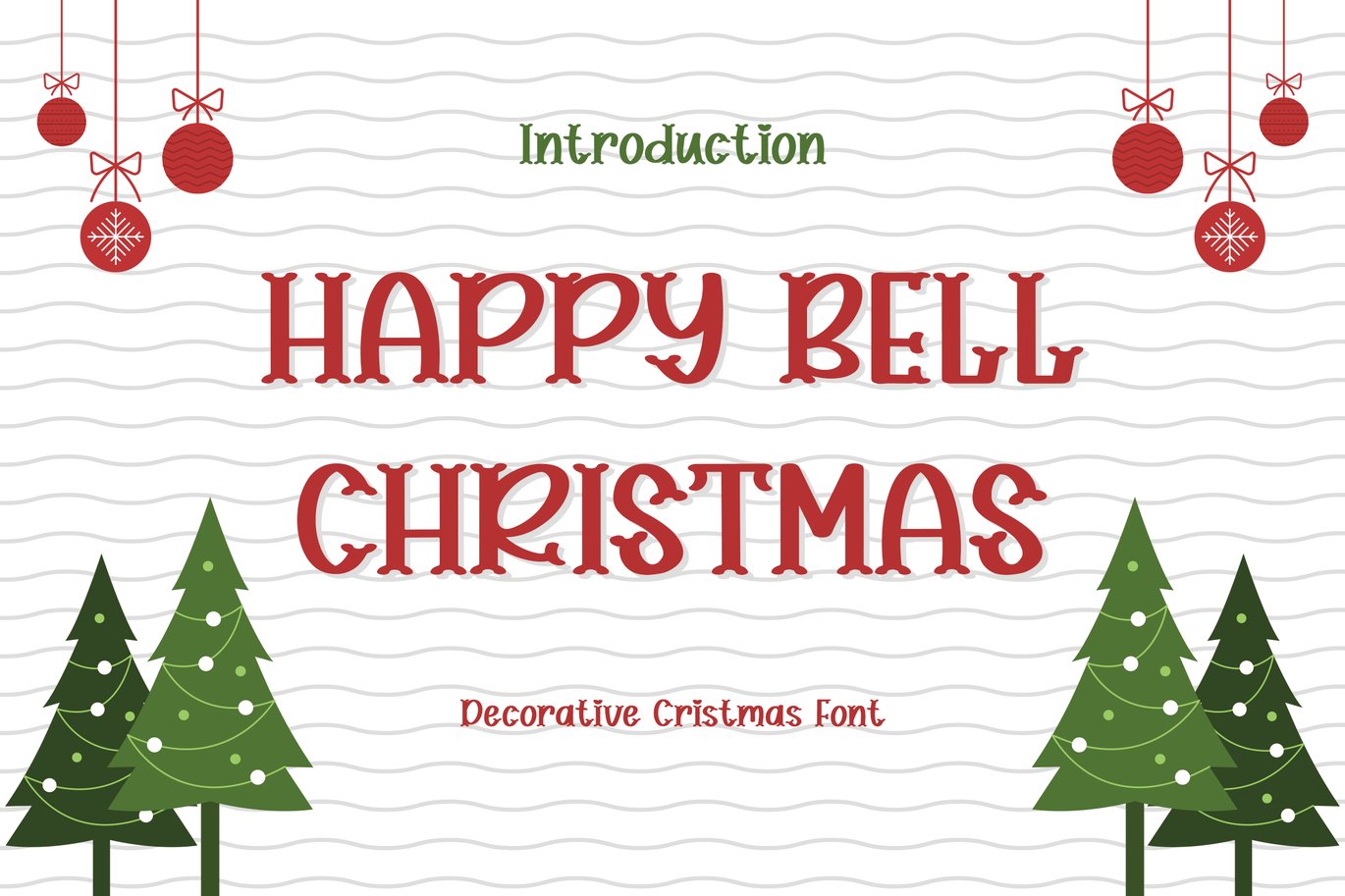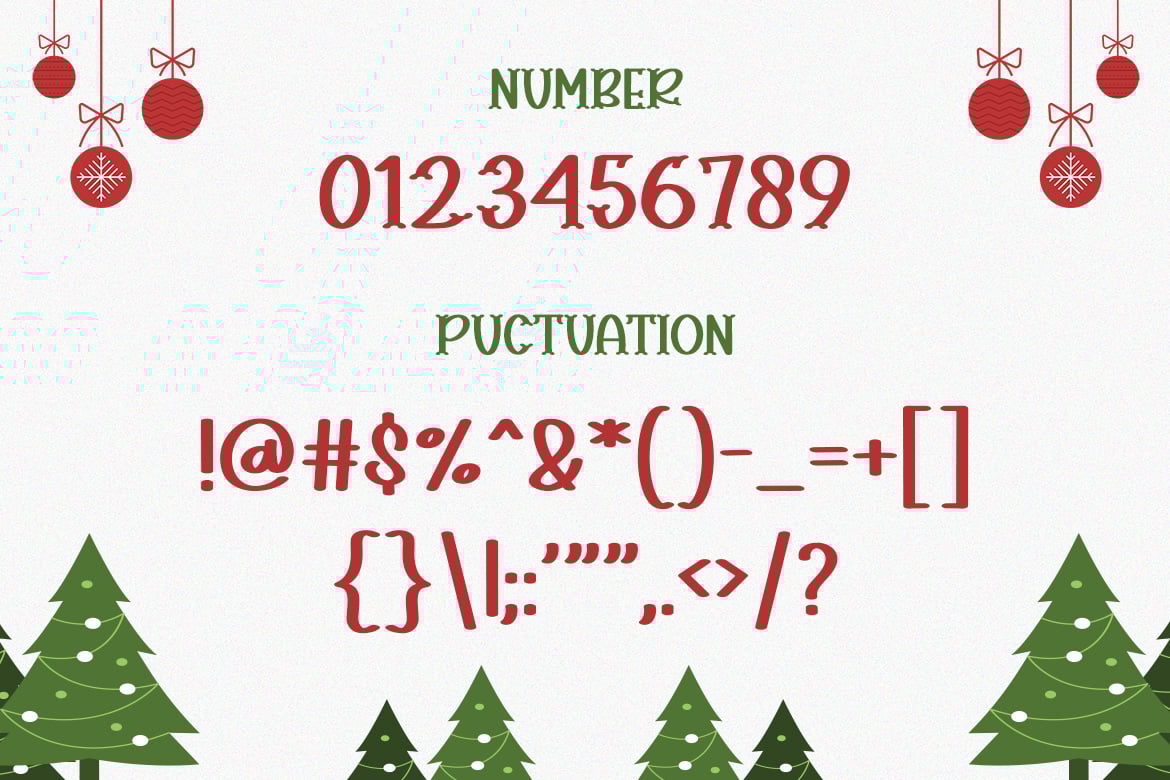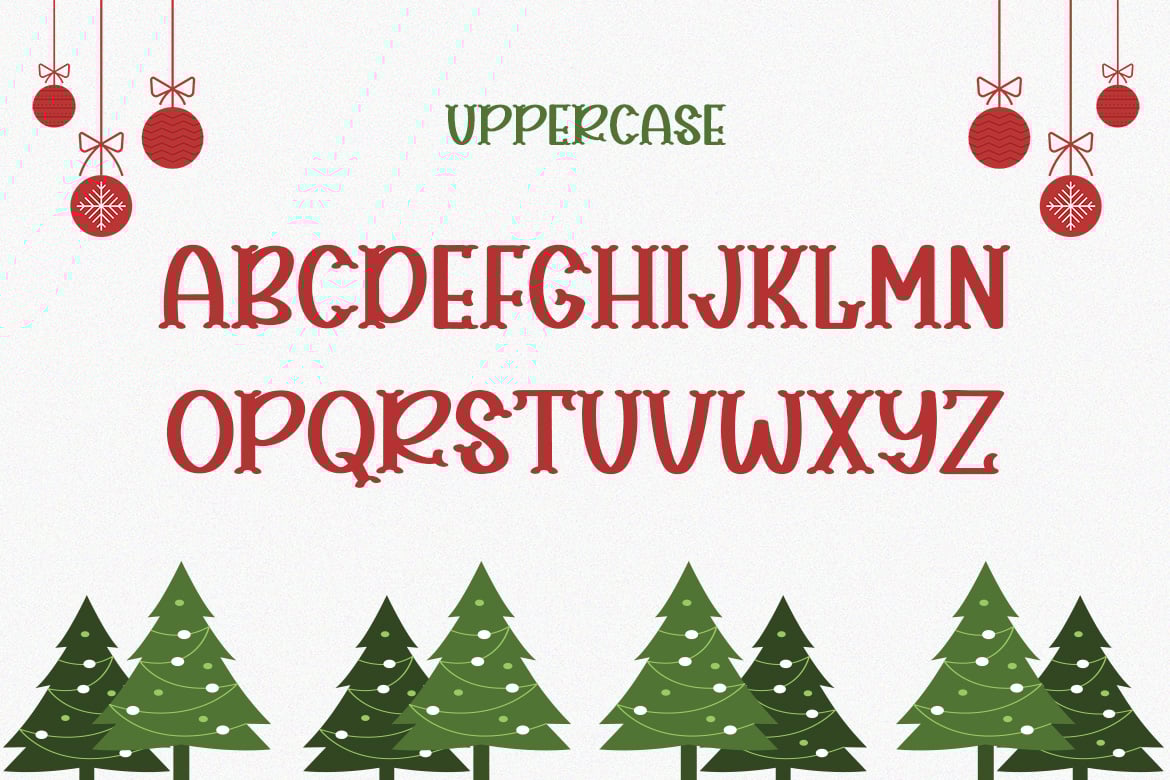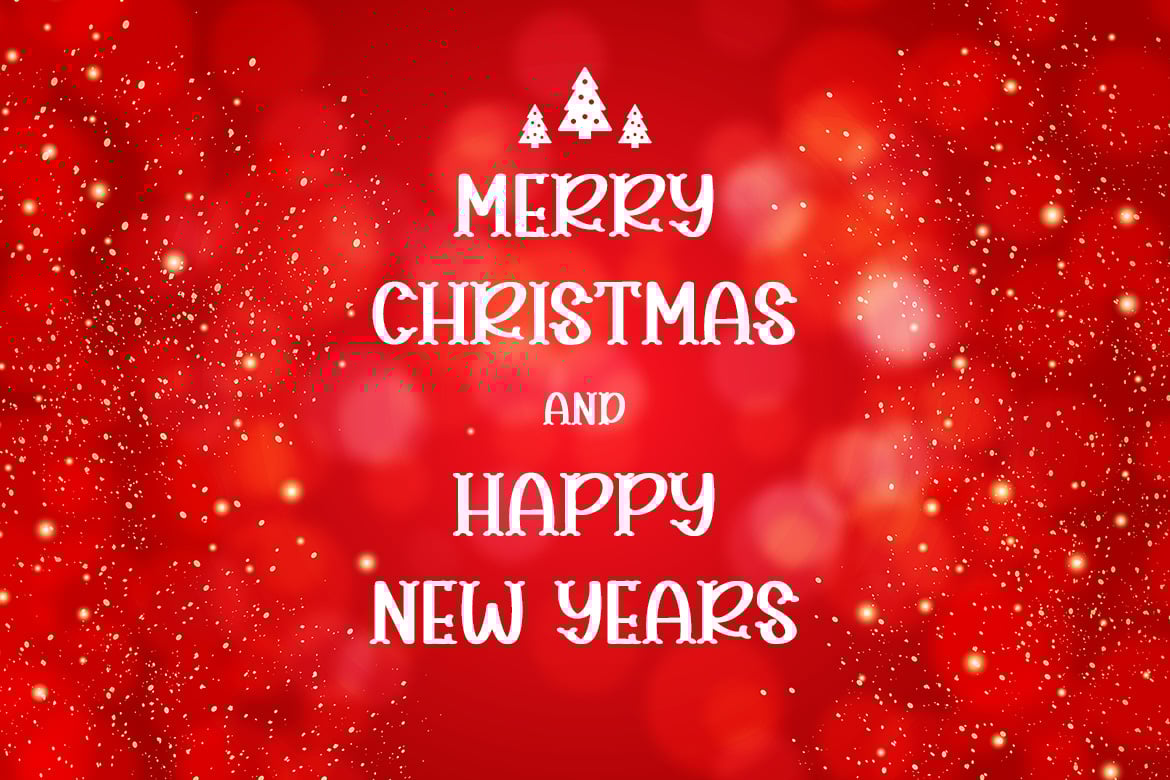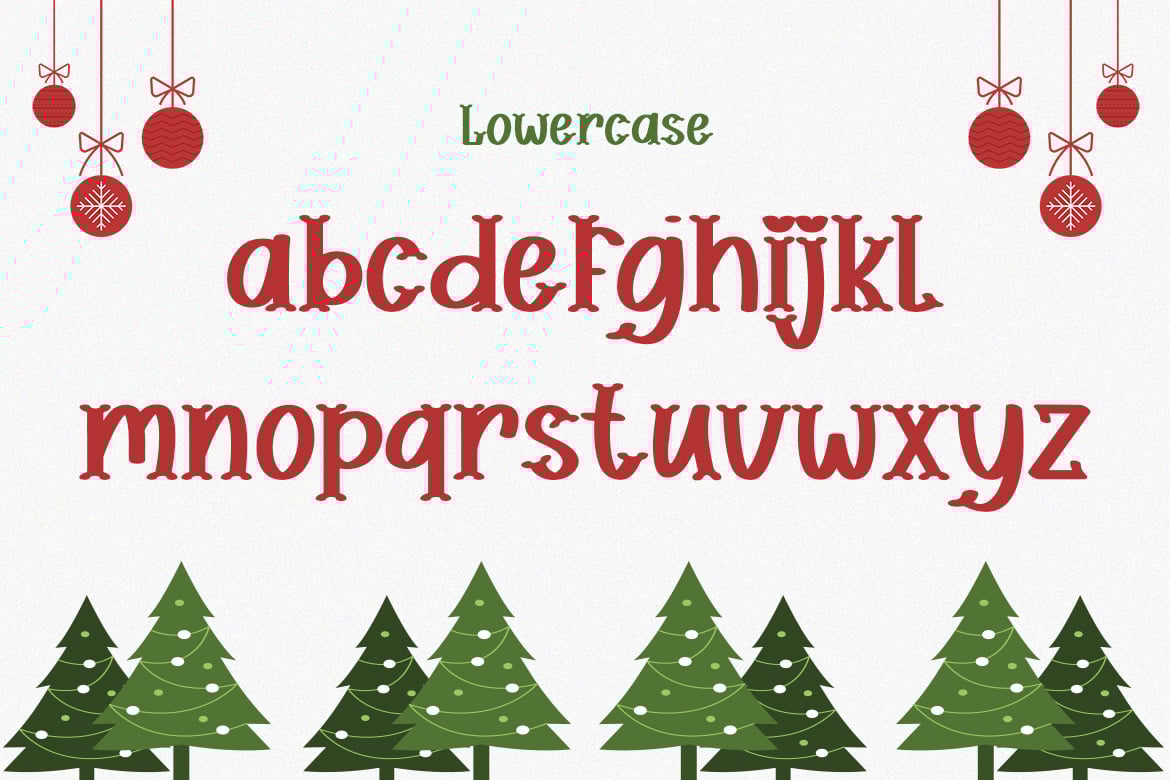
HAPPY BELL CHRISTMAS – Decorative Christmas Font
HAPPY BELL CHRISTMAS is a unique display typeface perfect for titles, large text, branding, logotypes & graphic design purposes such as posters, pamphlets, and advertisements. This letter font can be a great choice for creating amazing logos, promotional content, and marketing presentations that can bring uniqueness and freshness at its best.
Uppercase and Lowercase letters
Numbering and Punctuations